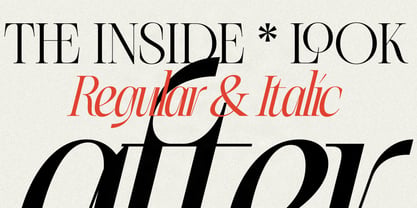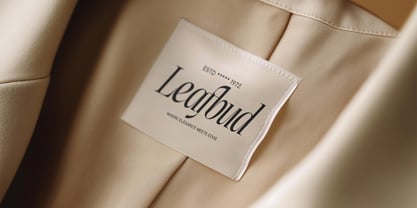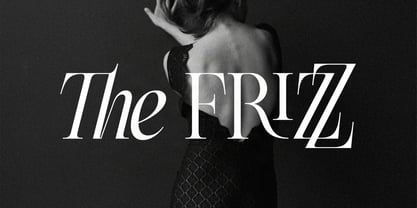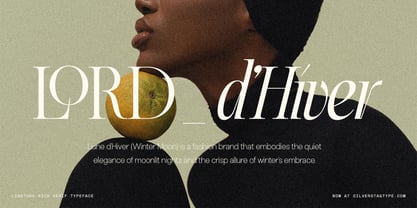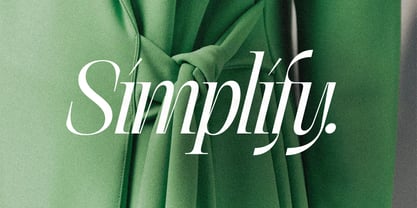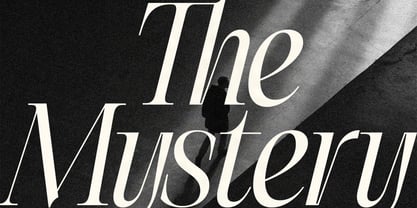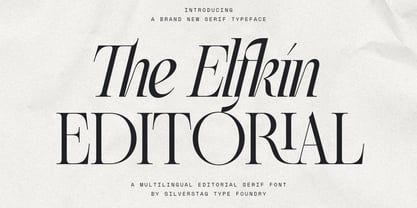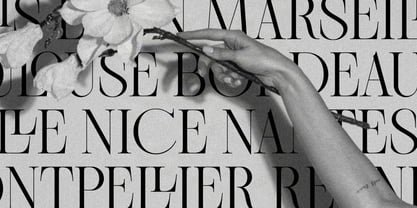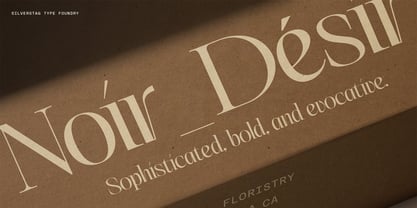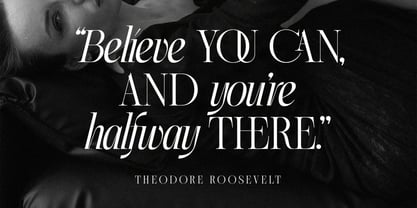
SLTF The Elfkin Editorial
La familia tipográfica SLTF The Elfkin Editorial fue diseñada por SilverStag y publicada por SilverStag. SLTF The Elfkin Editorial contiene 2 estilos y opciones de paquete familiar.
Meet SLTF The Elfkin Editorial, a refined and versatile serif font crafted to elevate your editorial designs, branding projects, and creative layouts. With an elegant structure, graceful contrast, and a distinctively expressive italic, Elfkin adds personality and a touch of drama to your typography work.
This typeface isn’t just about style – it’s packed with function. Over 80 alternate characters and ligatures let you experiment and refine your headlines, logos, and long-form content with ease. Whether you’re designing for magazines, book layouts, personal branding, or social media graphics, Elfkin delivers a timeless yet contemporary flair.
What sets The Elfkin Editorial apart is its italic version – full of life, movement, and emotion. It’s ideal for adding emphasis or romantic detail without losing clarity. Every letterform has been thoughtfully drawn to maintain strong rhythm and balance, even in tight settings or large sizes.
The font supports 100+ languages, includes complete punctuation, and is perfect for designers who want a typeface that’s polished, adaptable, and filled with character.
Bring a sense of storytelling, elegance, and sophistication into your design work with SLTF The Elfkin Editorial – a font that looks as good in print as it does on screen.